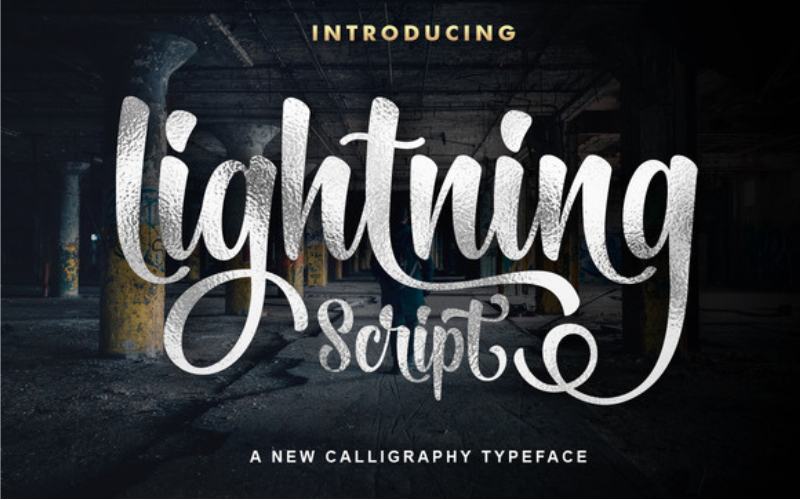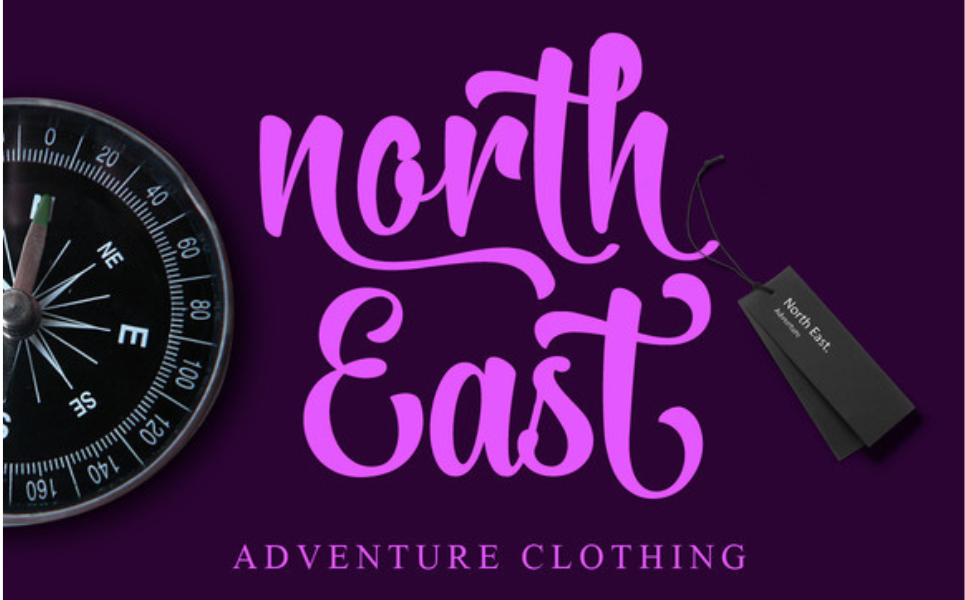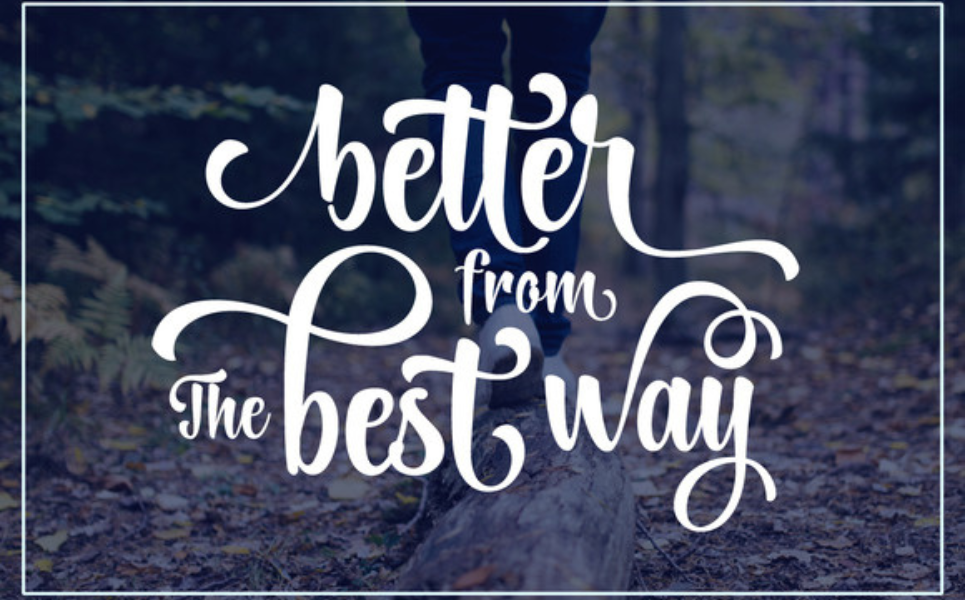
Lightning Script Font FREE
"About Lightning Script Font" is a stunning digital font created with a modern and edgy design. This font is perfect for anyone looking to add a touch of boldness and sophistication to their digital projects.
With its sleek, elegant lines and flowing curves, the Lightning Script Font is a unique and eye-catching addition to any design. Its smooth strokes and natural movement make it perfect for a variety of uses, from branding and advertising to social media graphics, posters, and more.
This font is highly customizable, allowing you to adjust the weight, height, and spacing to fit your specific needs. Whether you want to use it for headlines or body text, the Lightning Script Font is versatile enough to handle any project.
One of the most impressive features of this font is its ability to convey emotion and personality. The bold, dynamic lines of the Lightning Script Font are perfect for creating a powerful and unforgettable brand identity. Whether you want to convey strength and resilience, or playfulness and creativity, this font has the ability to express your message with clarity and impact.
Overall, if you're looking for a digital font that will help you stand out from the crowd and make a powerful impression, the Lightning Script Font is an excellent choice. Its modern and edgy design, versatility, and ease of use make it the perfect addition to any designer's toolbox.